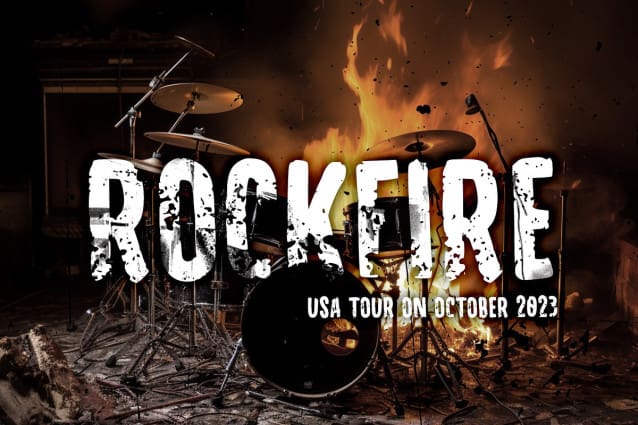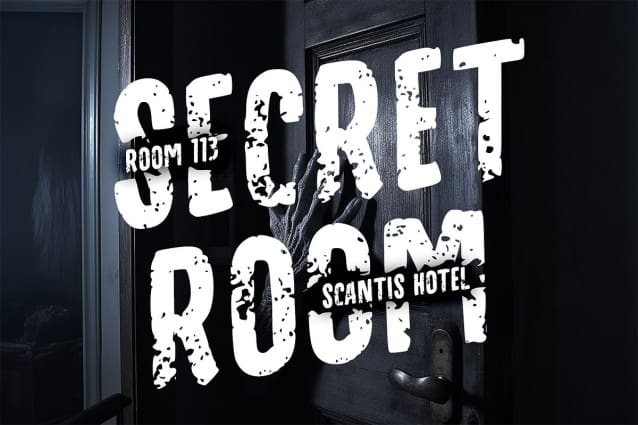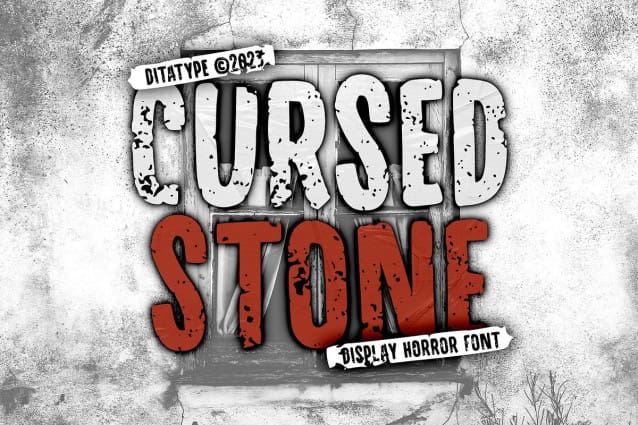
Cursed Stone Font
Cursed Stone Font is a spine-chilling display font that will transport your designs to a realm of dark enchantment. Designed in large letters and with a bold weight, this typeface demands attention and exudes an aura of haunting mystery. Each letter is meticulously crafted with eerie stone texture details, adding an ominous and cursed touch to the font.
The large size of the letters enhances the font’s imposing presence, making it impossible to ignore. The stone texture details in each letter of this font bring an authentic and sinister feel, as if the font was chiseled from the depths of an ancient cursed monument. These haunting details add an element of mystique and darkness, immersing the viewer into a world of malevolent enchantment.
The combination of bold weight and stone texture gives Cursed Stone a rugged and formidable look, evoking images of cursed relics and forbidden ruins. The letters appear to hold secrets from the past, carrying a haunting energy that captures the imagination. For the best legibility you can use this font in the bigger text sizes. Enjoy the available features here.